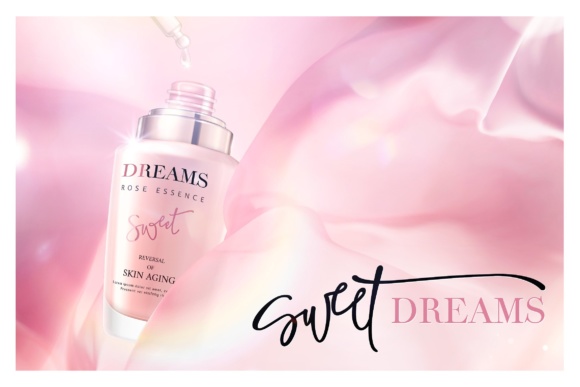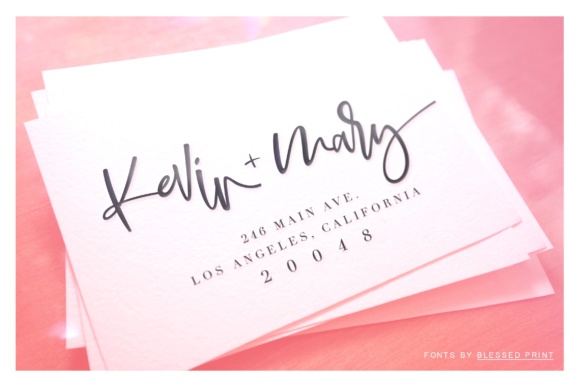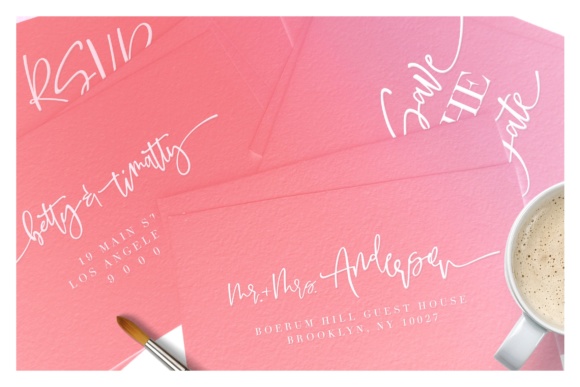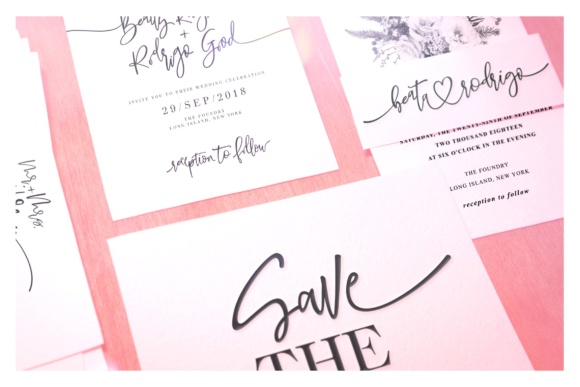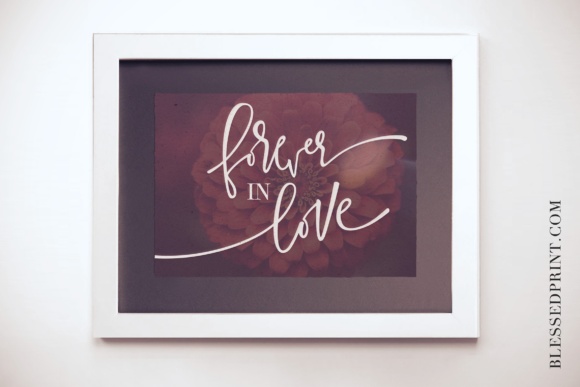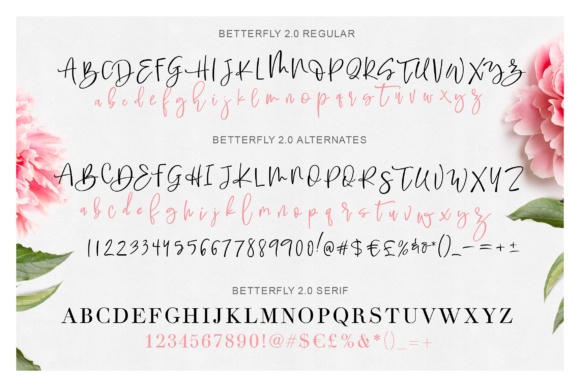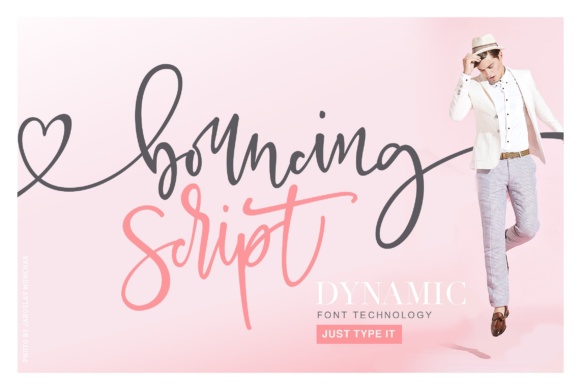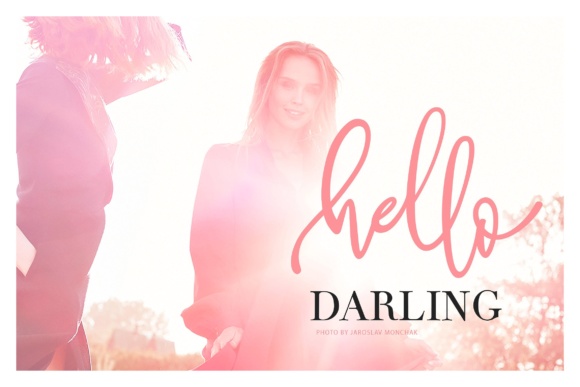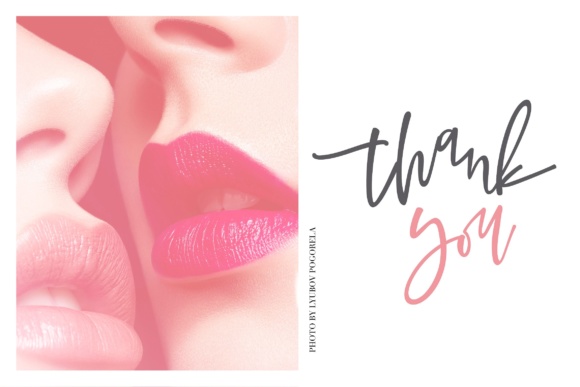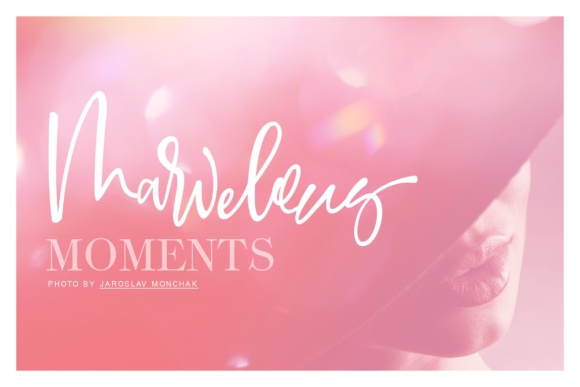
BetterFly 2 Font
The BetterFly is a dynamic, modern calligraphy font. It has a playful and feminine look, which is great for wedding invitations and anniversaries, blogs and logos.
The Betterfly has plenty of integrated and individual swashes that help bring your design to the next level.